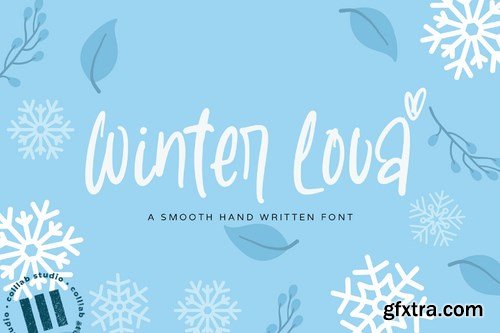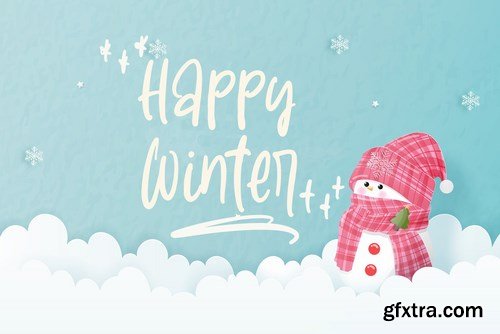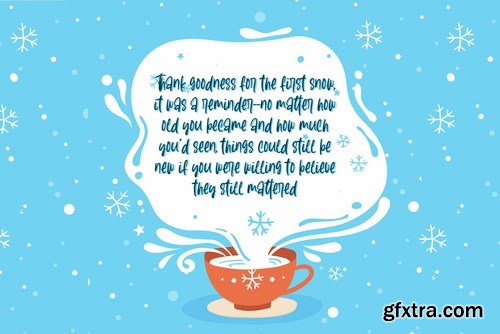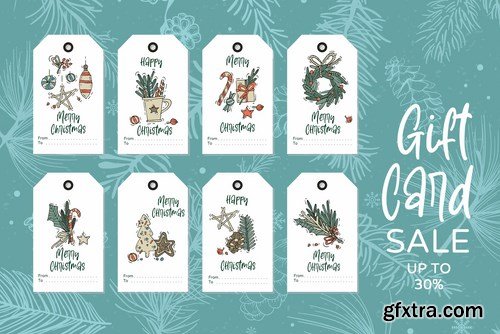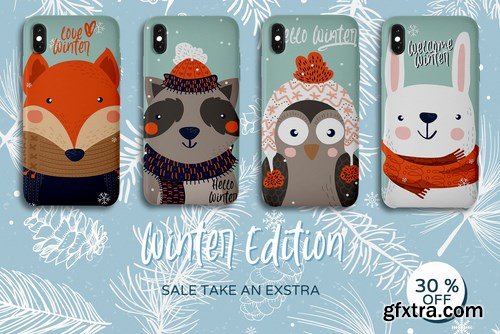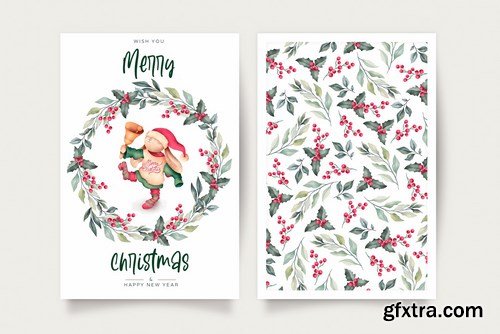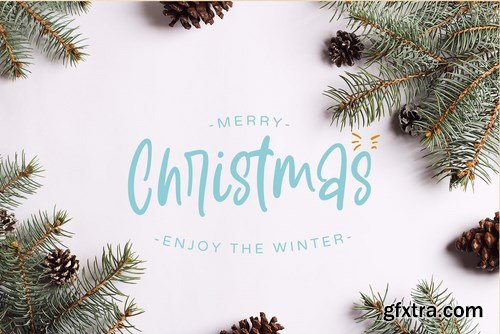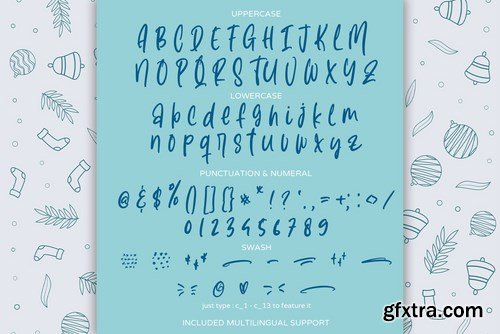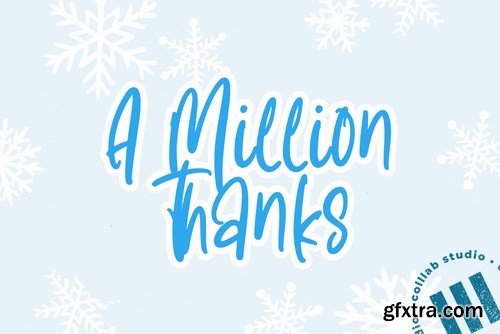
Winter Lova is a new modern script font with a handmade calligraphy style and decorative characters. Trendy and feminine style. This passionate pair of hand-drawn marker fonts is ideal for designing handwritten style design.
The font is best for: logos + branding website design + website accents - think travel blogs, fashion blogs, & more Clean print design, like magazines + flyers header elements that need handwritten touch quote graphics for social media What's include : Full upper + lowercase characters Numbers + punctuation Swashes Pua-encoding .otf, and .ttf file Multilingual Support